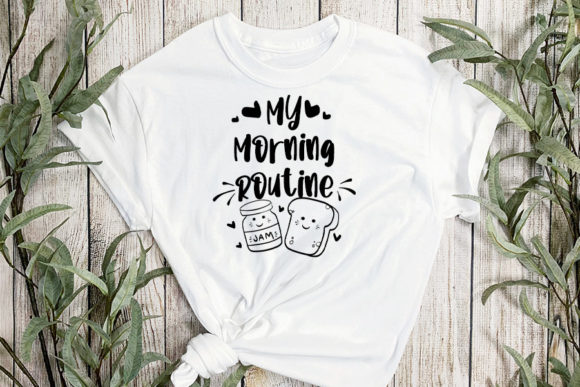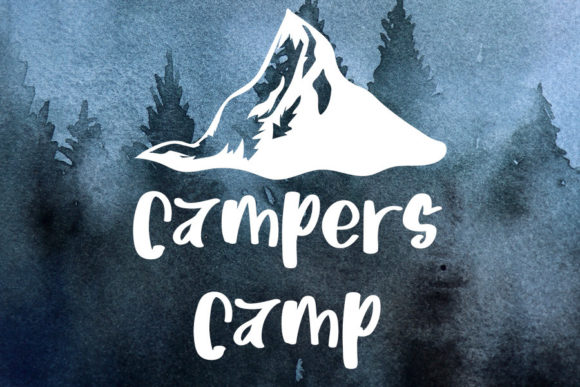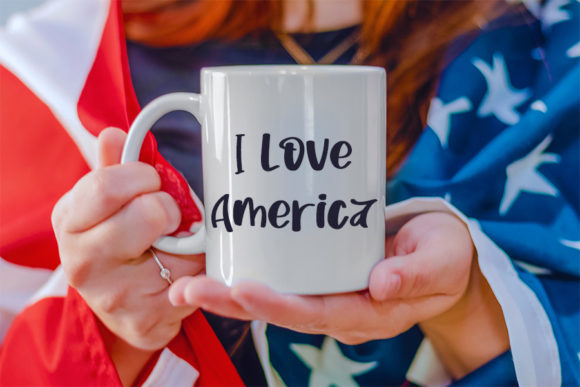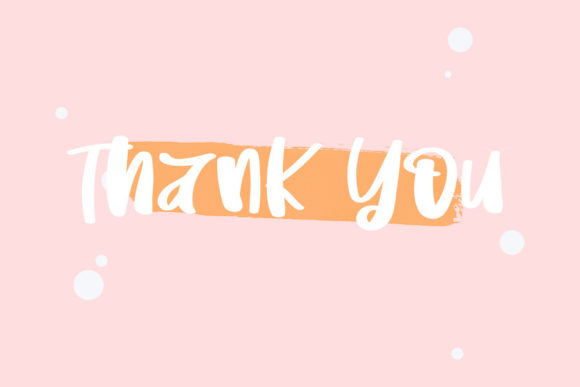
Introduction to Asymetrical Shapes Font
Asymetrical Shapes is a casual and informal handwritten font.
Key Features of Asymetrical Shapes Font
Why Choose Asymetrical Shapes Font?
Asymetrical Shapes Font offers exceptional quality and versatility, making it a valuable addition to your design toolkit. Whether you’re creating for personal projects or commercial use, Asymetrical Shapes Font delivers professional results.